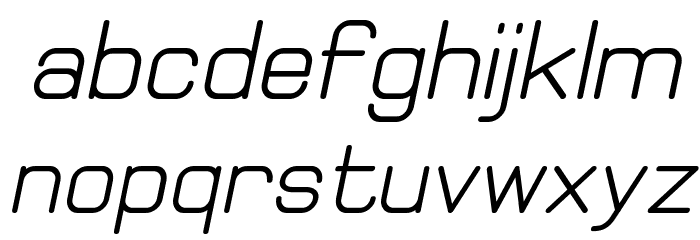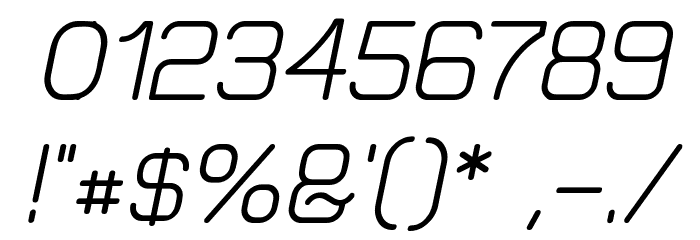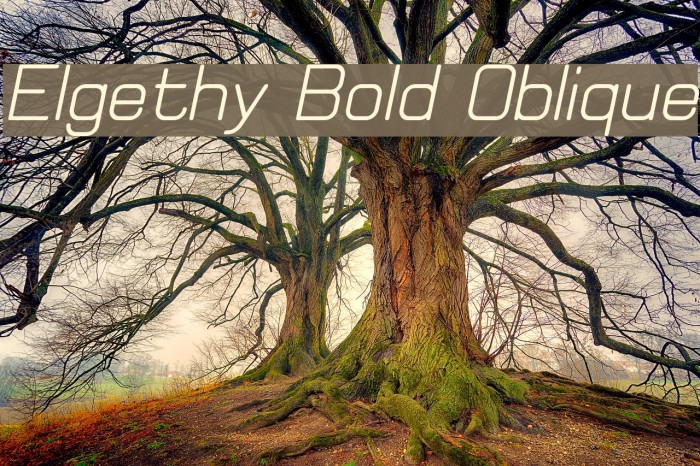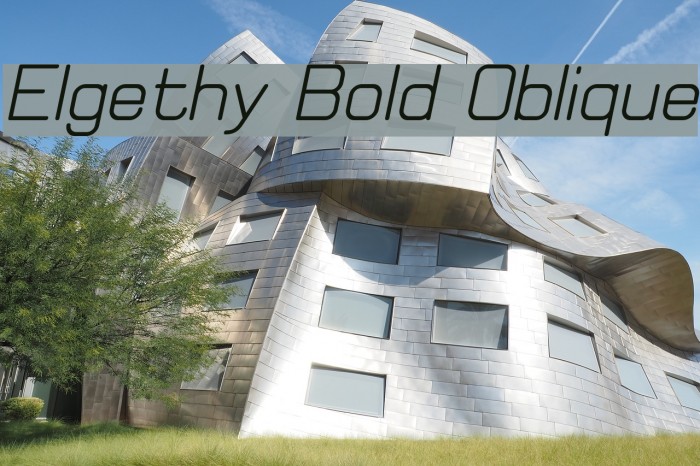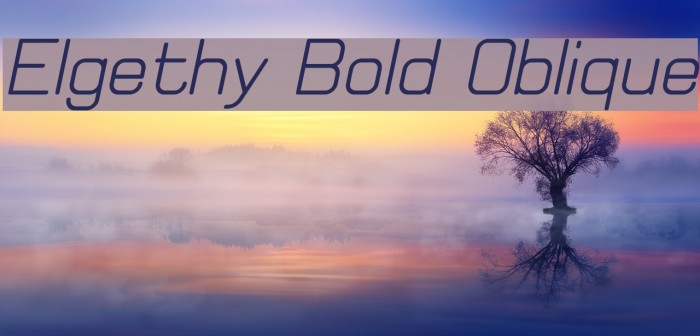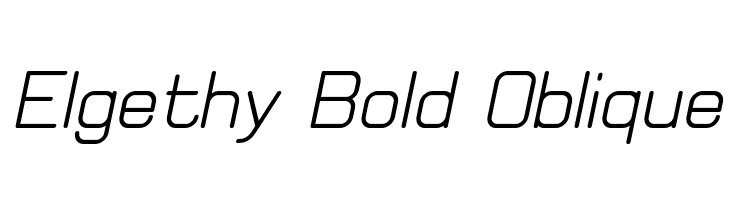
Elgethy Bold Oblique Font
This font features a sleek, modern design with a distinct oblique slant, giving it a dynamic and forward-moving appearance. The characters are crafted with a consistent stroke width, providing a clean and uniform look. The rounded edges soften the overall feel, making it approachable yet professional. The uppercase and lowercase letters maintain a harmonious balance, while the numerals and special characters are designed to complement the alphabet seamlessly. This font's style is suitable for conveying a sense of innovation and modernity.
A sleek, modern oblique font with consistent stroke width and rounded edges.
- Proposed Projects: Ideal for technology branding, modern advertising, and innovative product packaging.
- Use Case: Headlines, Logos, Branding